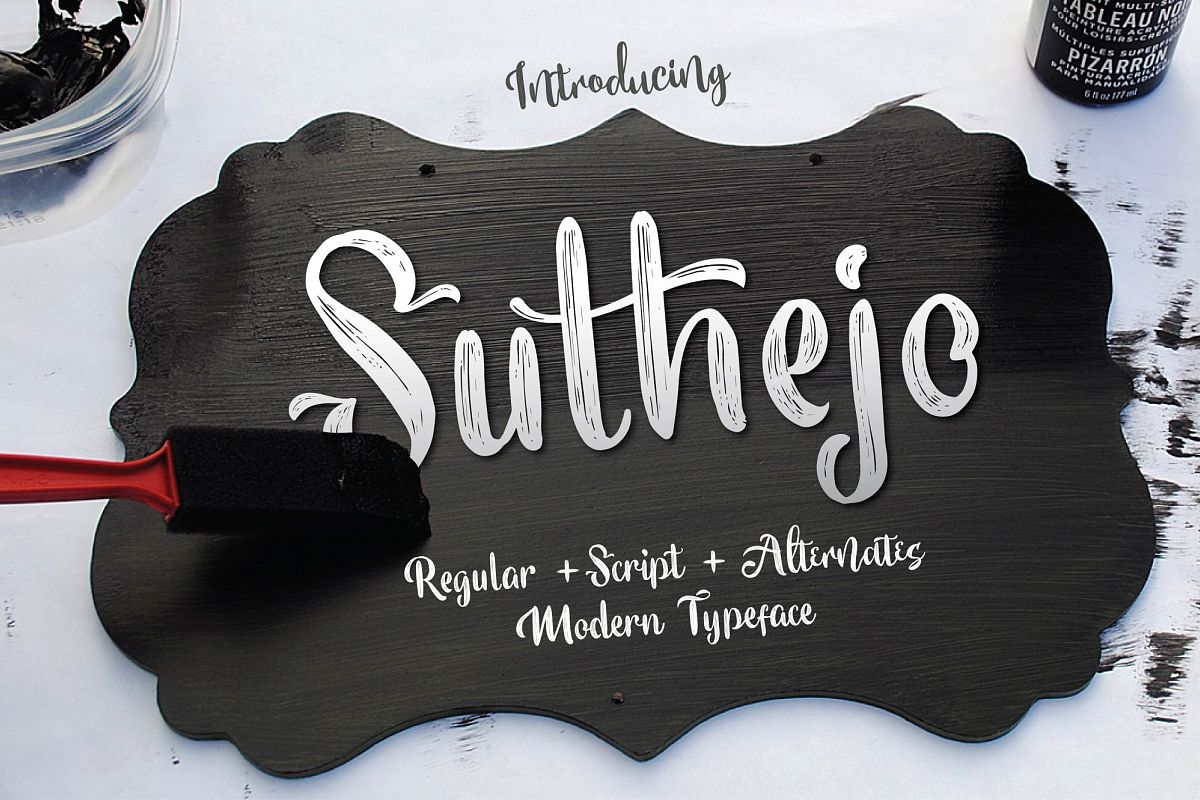
Suthejo Modern Typeface
Suthejo Alternates
Suthejo Script Alternates
Suthejo Script
Suthejo
hi Friends......Suthejo is a beautiful Script, It suitable for wedding invitation, greeting cards, T-Shirt, Logo or any design that you create.comes with a complete set of standard characters, Alternates, Punctuation & international glyphsFeatures